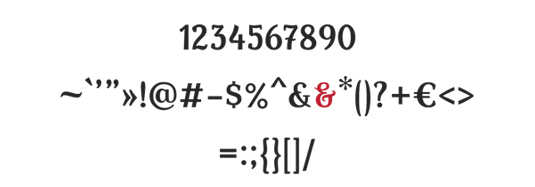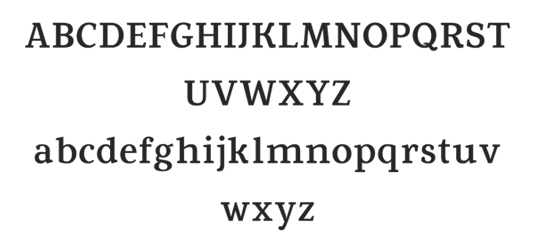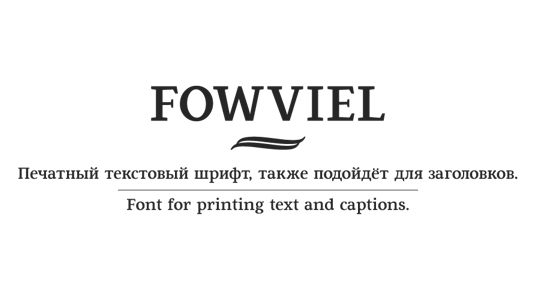
Font of the day: Fowviel
Fowviel by Dmitry Barsukov
Graphic and type designer Dmitry Barsukov created elegant font Fowviel. Describing it as most suited to 'printing text and captions', this serif typeface is totally free.